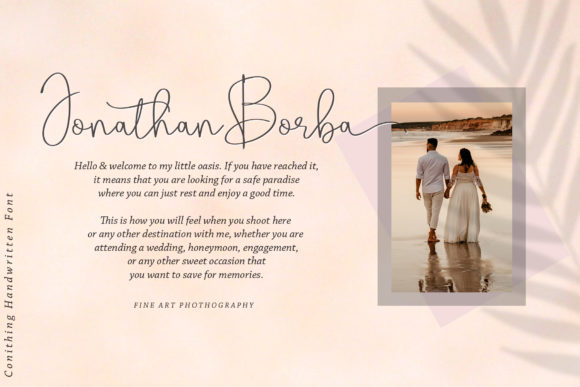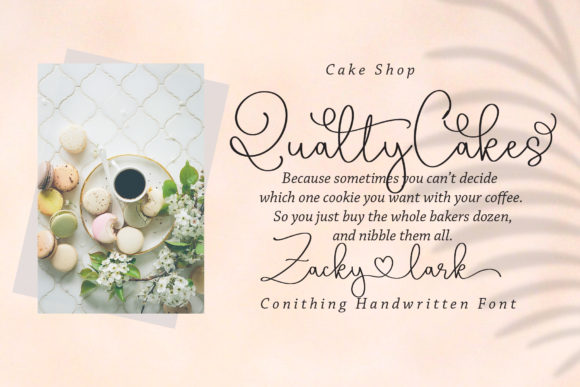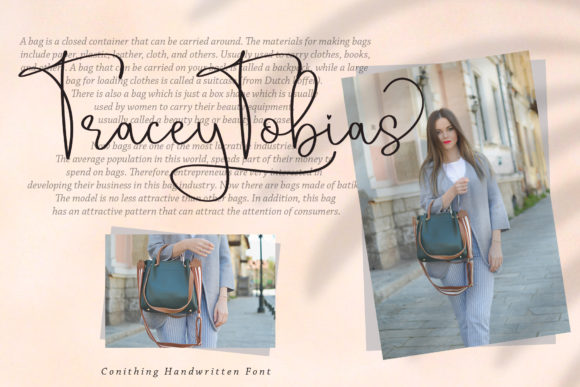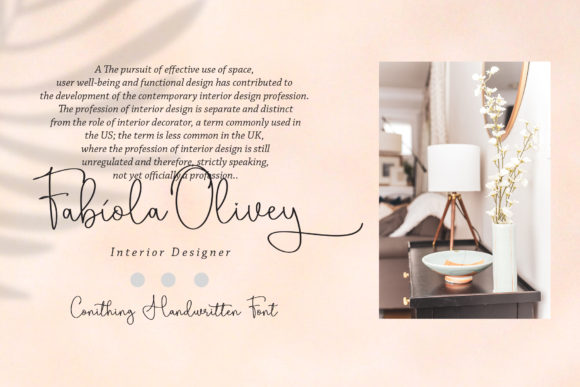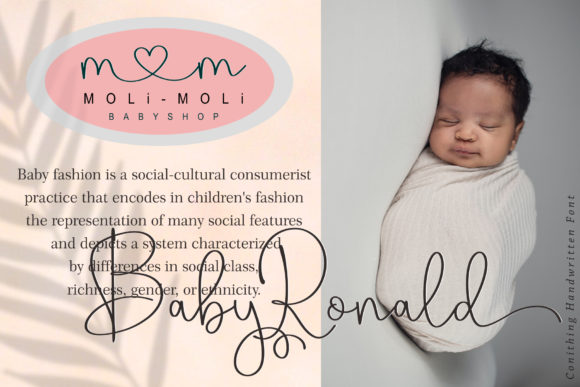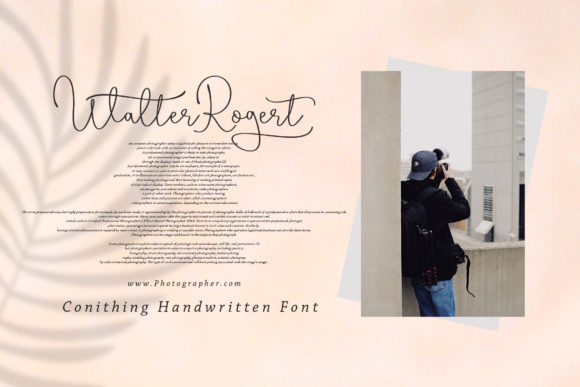
The Quest for the Perfect Handwritten Font: Discovering Conithing
I’ll never forget the time I was working on a wedding invitation project, and my client asked for a font that was ” elegant, yet playful” and would make their special day feel truly unique. I scoured the internet, tried out dozens of fonts, but nothing seemed quite right. That was until I stumbled upon Conithing, a delicate and romantic handwritten font that stole my heart ✨. In this article, I’ll share my experience with Conithing, its features, and how to make the most of it in your designs.
A First Impression: What I Love About Conithing
Conithing is a beautiful, handwritten font that exudes romance and sophistication. Here are some things I love about it:
- ✨ Delicate and elegant strokes, perfect for wedding invitations, thank you cards, and other special occasions
- ✅ PUA encoded, making it easy to access all glyphs and swashes
- 💕 A wide range of applications, from logos and business cards to quotes and greeting cards
- 🎨 A unique, hand-crafted feel that adds a personal touch to any design
Honest Review: A Few Quirks to Consider
While Conithing is an amazing font, there are a few things to keep in mind:
- 🤔 Some users may find the font a bit too delicate for certain design applications
- ⚠️ As with any font, it’s essential to test it thoroughly to ensure it works well with your specific design
The Story Behind Conithing: Designer Inspiration
While I couldn’t find any information on the designer behind Conithing, it’s clear that they were inspired by the beauty of handwritten script. The font’s delicate strokes and elegant feel make it perfect for special occasions and romantic designs. Whether the designer was inspired by traditional calligraphy or modern hand-lettering, their work has resulted in a truly stunning font.
| Font Name | Conithing Font |
| Author | Sulthan Studio |
| What is Conithing font best used for? | Conithing is perfect for wedding invitations, thank you cards, quotes, greeting cards, logos, business cards, and any other design that needs a handwritten touch. |
| Is Conithing font PUA encoded? | Yes, Conithing is PUA encoded, making it easy to access all glyphs and swashes. |